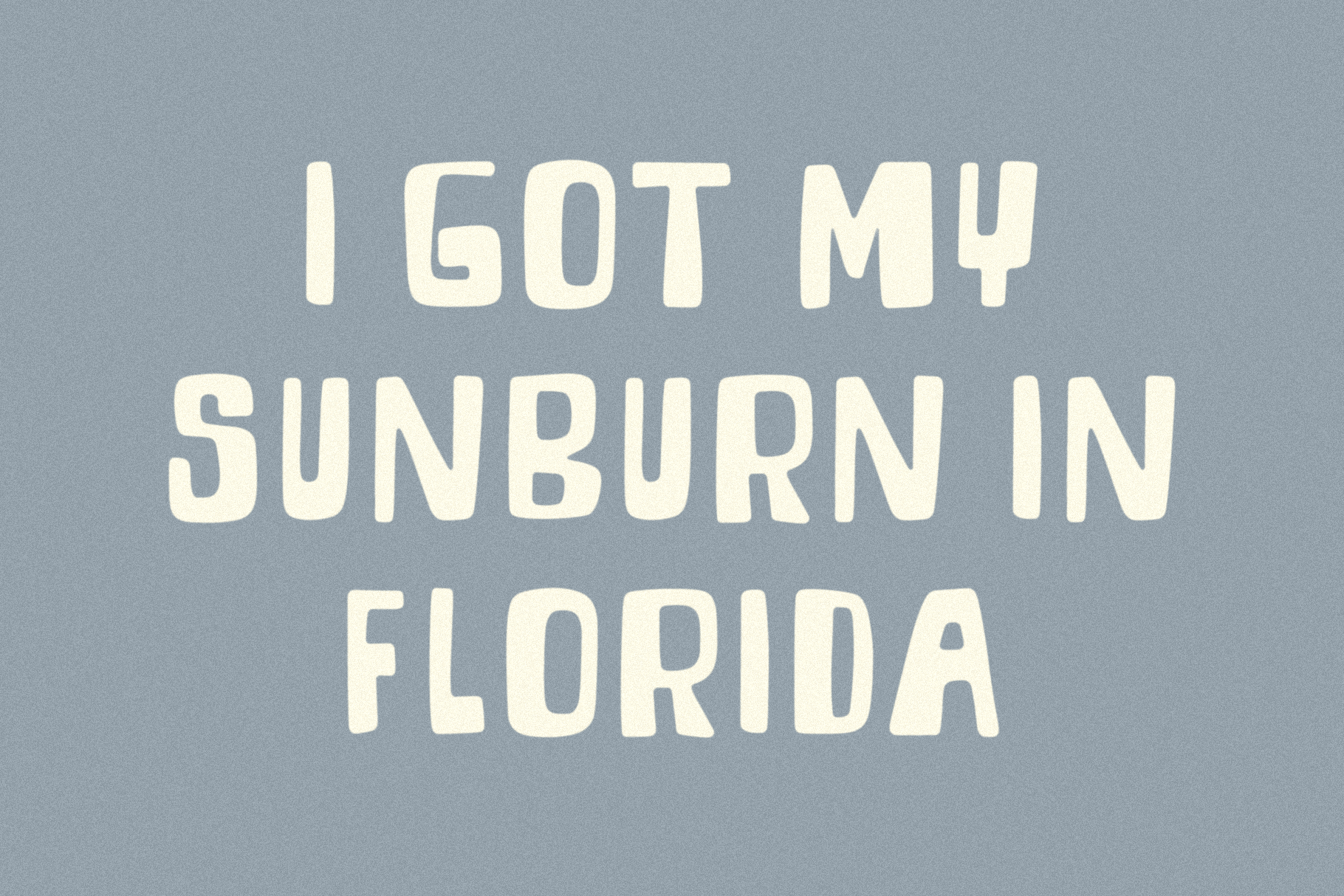
Islander
ISLANDER – A hand crafted, retro display font.
UPPERCASE LETTERS ONLY
Standard English alphabet
Numbers, Currency Symbols, Standard Punctuation